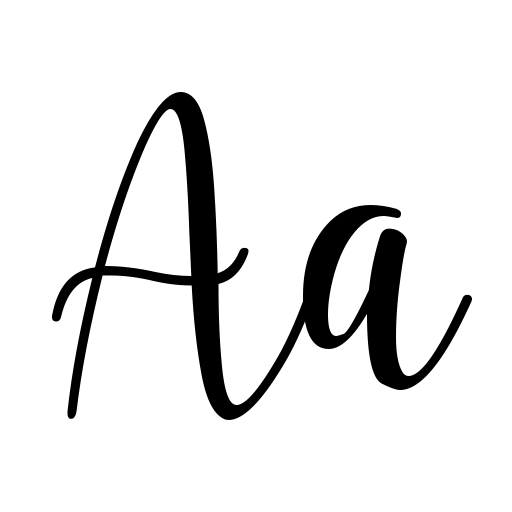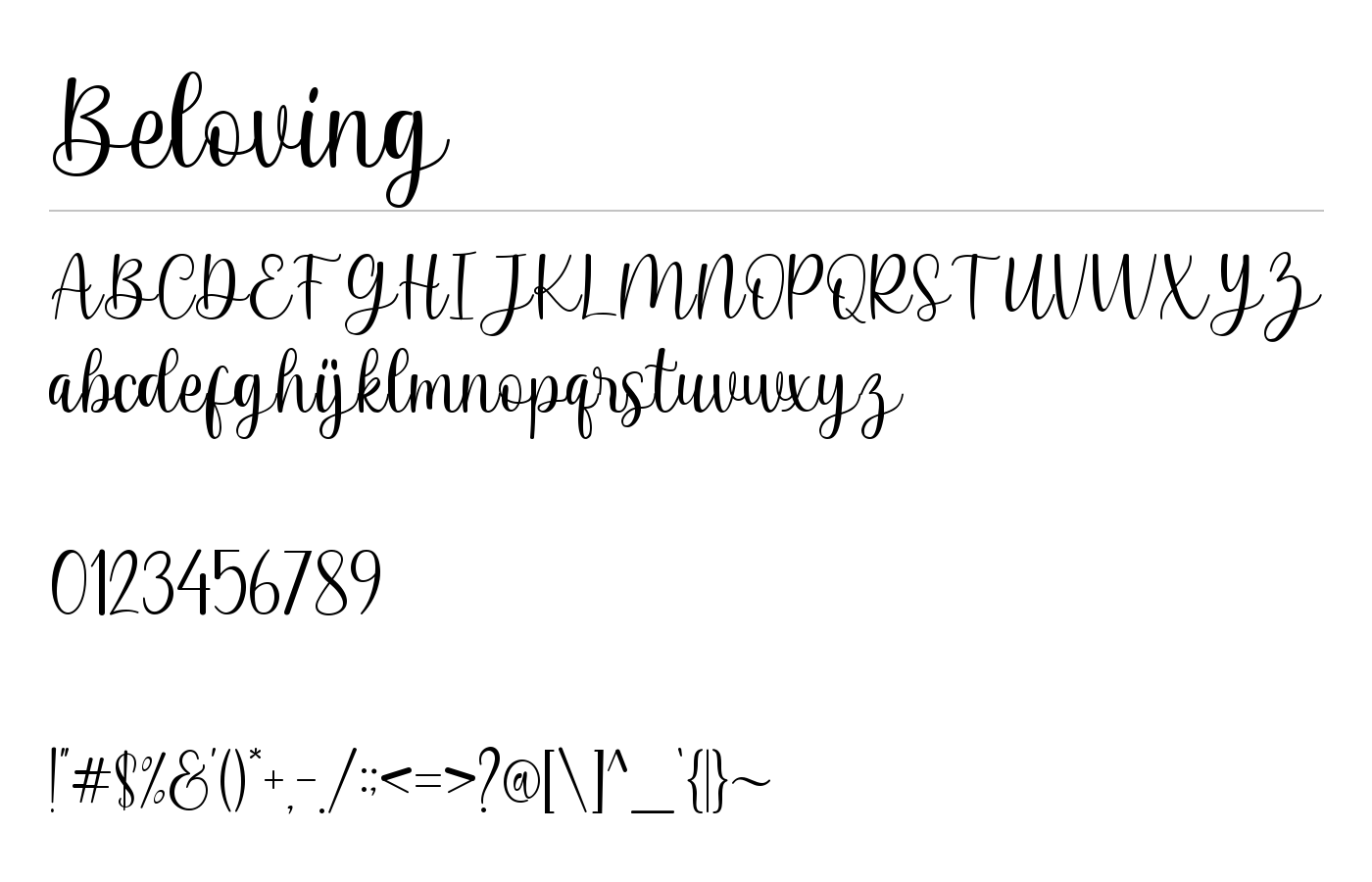
Beloving is a delicate and elegant script font with smooth, flowing lines and a light, airy feel. Its tall, slender letterforms and subtle swashes give it a charming, handcrafted personality, making it perfect for invitations, branding, and feminine design projects that seek a graceful and romantic touch. This font works beautifully in both display and decorative contexts where a soft, stylish presence is desired.
Beloving Font
About Beloving Font
| Designer | (MJB Letters). 2019. (Muhammad Mujibulloh) |